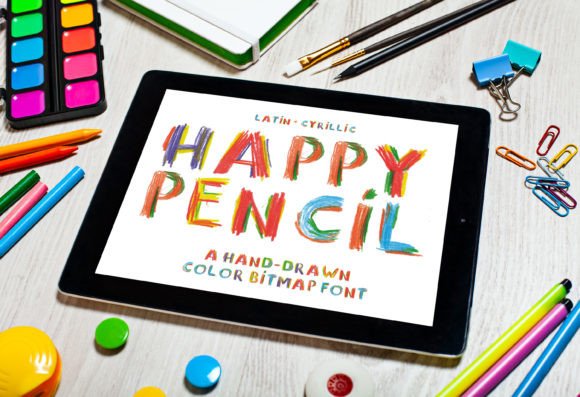
Welcome to the world of Happy Pencil Font, a vibrant and playful color font that's sure to add a touch of magic to your kid-friendly designs. Unleash your creativity and take your projects to new heights with this amazing font.
**Dive into a World of Colorful Delight:**
Happy Pencil Font is an explosion of colors, designed to bring joy and inspiration to your designs. With its cheerful palette and playful vibes, this font is perfect for creating eye-catching posters, invitations, greeting cards, and any other project that calls for a touch of fun and excitement.
**Ignite Your Imagination with Endless Possibilities:**
The Happy Pencil Font is your passport to a world of endless creative possibilities. Whether you're designing for a birthday party, a school project, or just want to add some whimsy to your work, this font has got you covered. Let your imagination run wild and create designs that will leave a lasting impression.
**Experience the Joy of Effortless Creation:**
**Add a Personal Touch to Your Creations:**
With the Happy Pencil Font, you can effortlessly add a personal touch to your projects. Whether you're designing a birthday card for a loved one or creating a school poster that truly reflects your style, this font allows you to express yourself in a unique and memorable way.